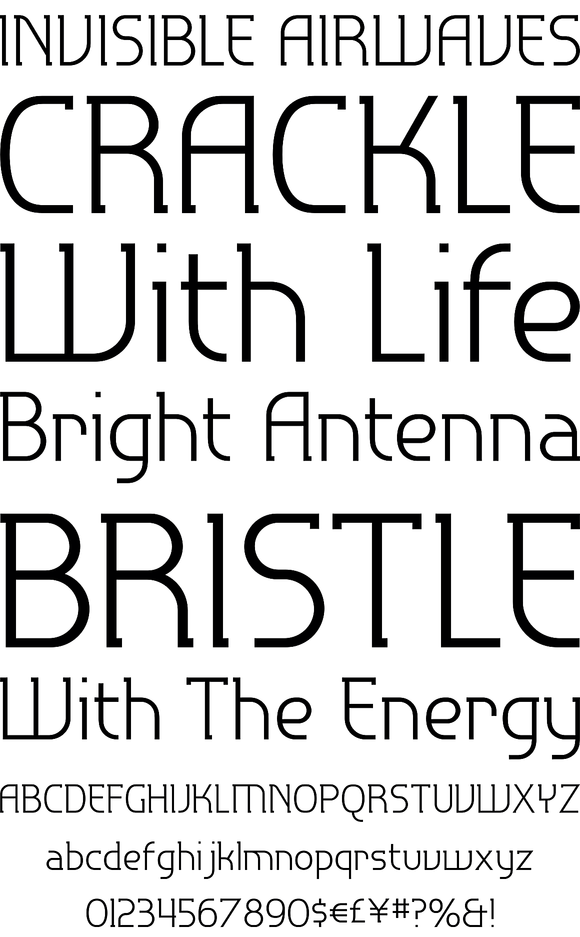
P22 Hedonic
Hedonic has just a hint of slab serif and even that is used so sparingly that is almost feels like a sans serif font. Its design does appear to be painfully simple but there are many interesting features including a selection of weights, small caps with old style numerals that make it very useful and legible.